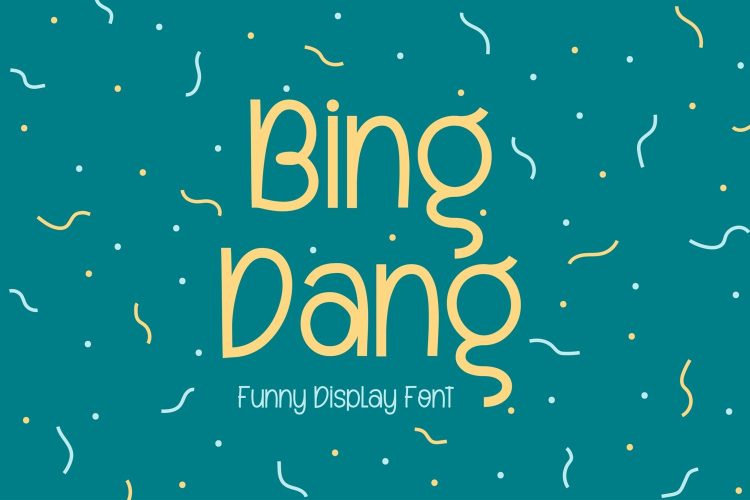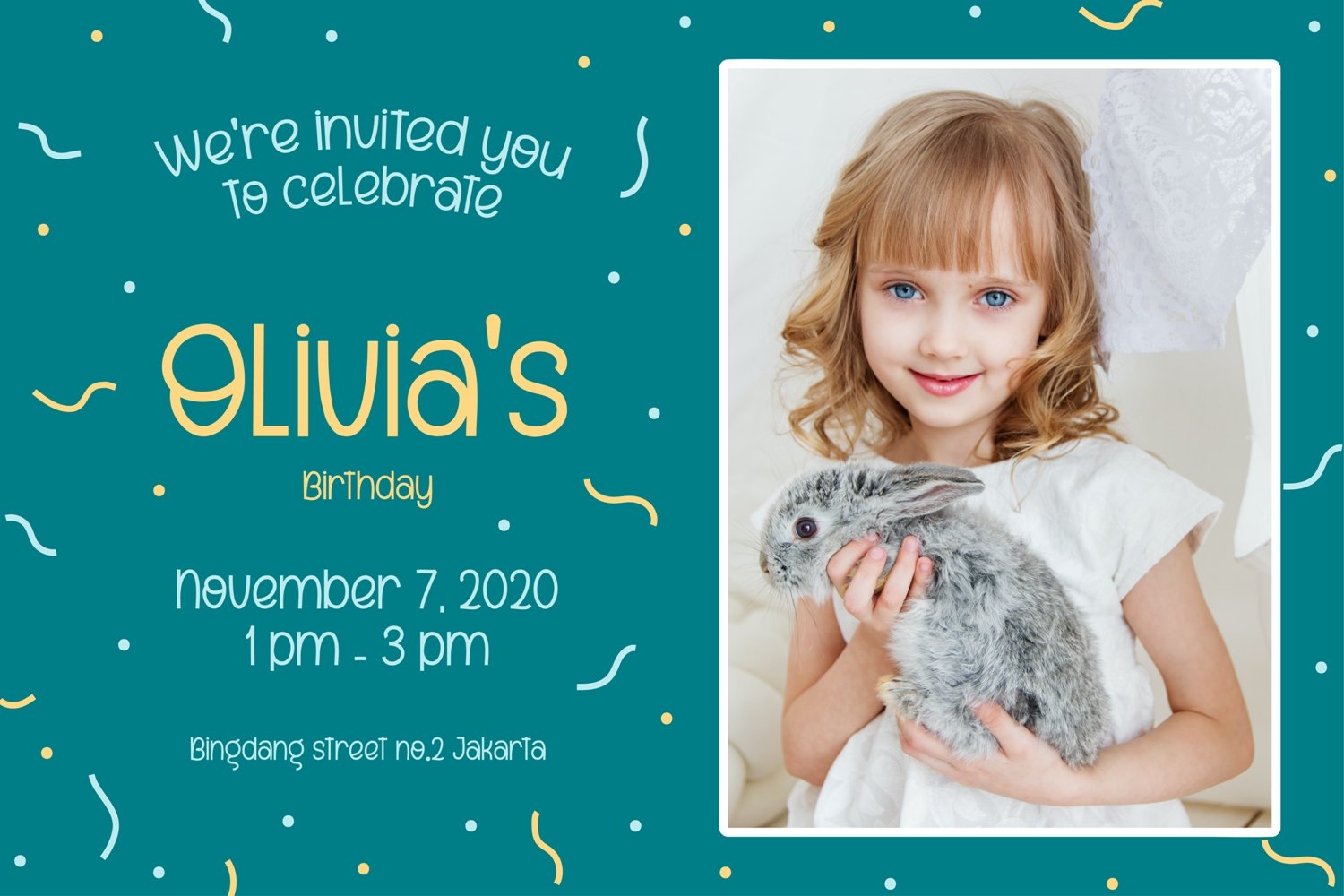
Bing Dang Playful Sans Serif Font
The best brands feel like friends — approachable, warm, and genuinely fun to spend time with. Bing Dang Playful Sans Serif Font captures exactly that spirit, delivering a bubbly, friendly personality that makes every design feel instantly inviting, joyful, and full of positive energy.
What sets Bing Dang apart as a playful sans serif font is its masterful balancing act: it is rounded enough to feel soft and child-friendly, yet structured enough to maintain strong legibility across all sizes and applications. The open apertures and generous letter spacing make it easy to read at both display and body text sizes, while the friendly, slightly inflated forms give it a visual warmth that cold, geometric sans serifs simply cannot match. Every character has been designed to work harmoniously with its neighbors, creating smooth, pleasing word shapes that guide the eye naturally.
Bing Dang is an outstanding choice for children’s brand design — educational apps, children’s book covers, toy brand identity, school supply packaging, and learning platform UI all benefit from its clear, friendly personality. Parents respond intuitively to Bing Dang’s warm character, associating it with trustworthiness and fun simultaneously. App designers and UX teams working on consumer-facing digital products love the font for its screen-optimized legibility and approachable personality that improves user experience.
Beyond children’s markets, Bing Dang works beautifully for casual retail brands, lifestyle apps, food delivery services, wellness platforms, and any brand that wants to feel human and accessible rather than corporate and distant. It pairs well with simple illustrations and bright, saturated color palettes.